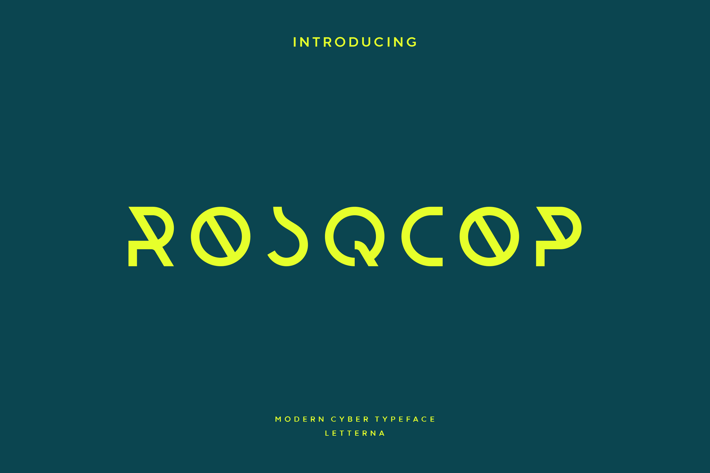
Rosqcop - Futuristic Cyber Font
Letterna
Rosqcop is a modern display font with an amazing futuristic feel, itβs thin shape makes it look luxurious and elegant. This font comes out with a unique style in all-caps which would be great for making space themed event poster, brochure, magazine, logo, headline or social media page cover, the design is minimalist yet futuristic so it will launch your designs into the stratosphere, this font will transform any creative idea becomes a true work of art.